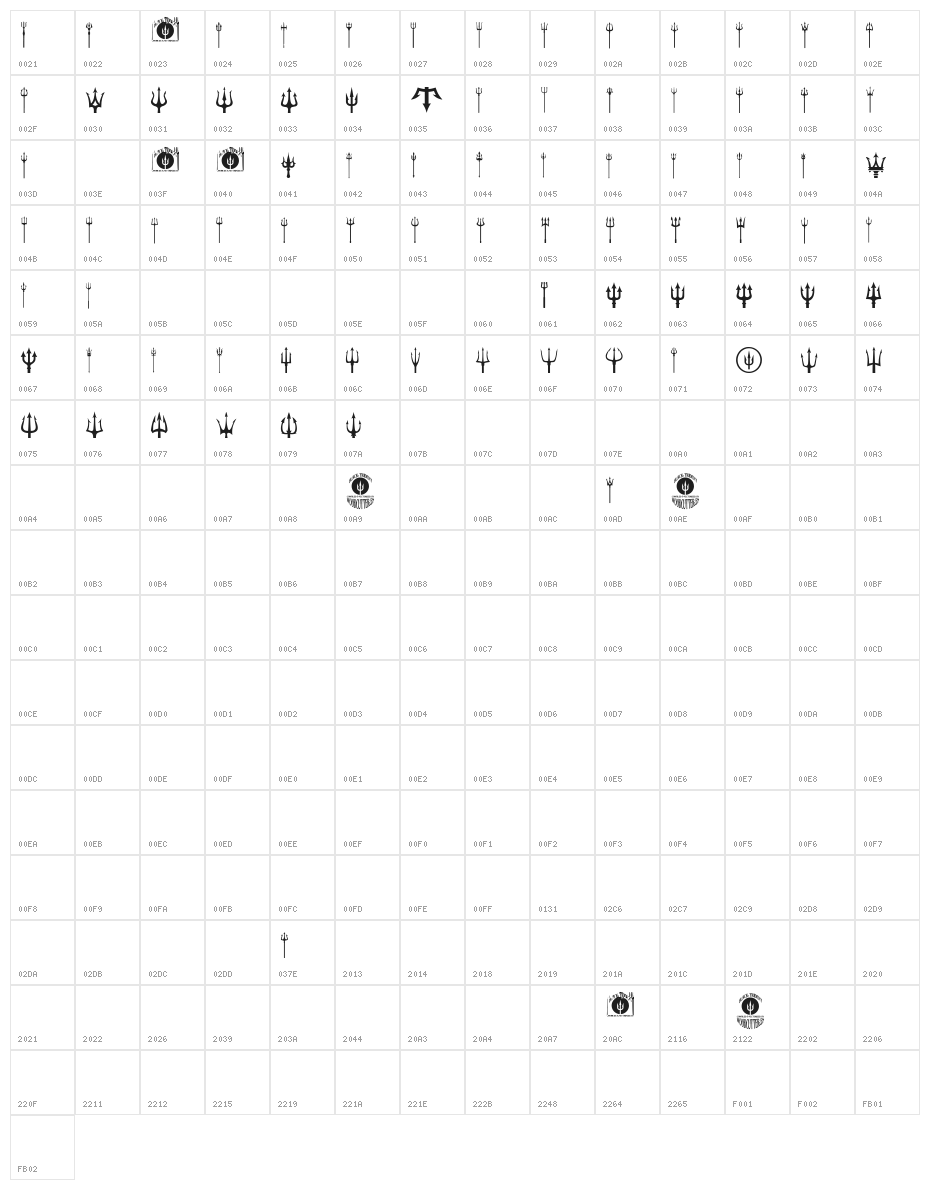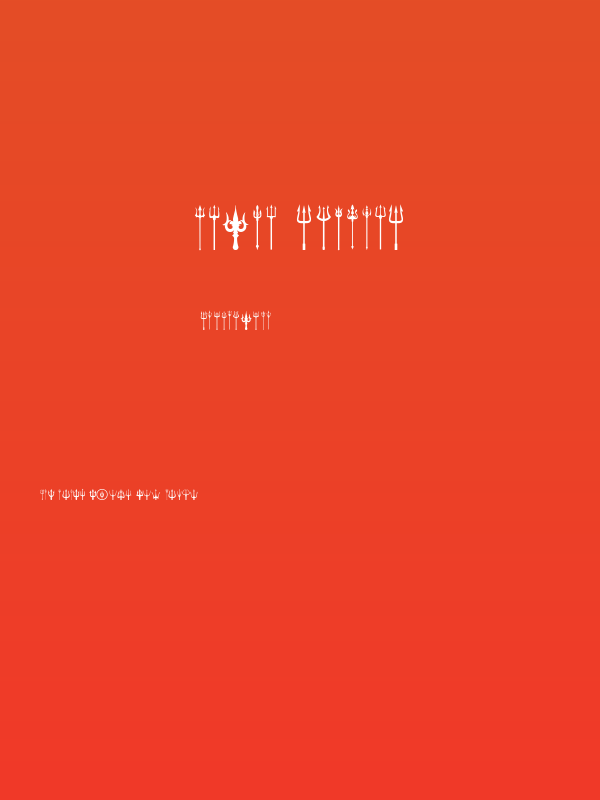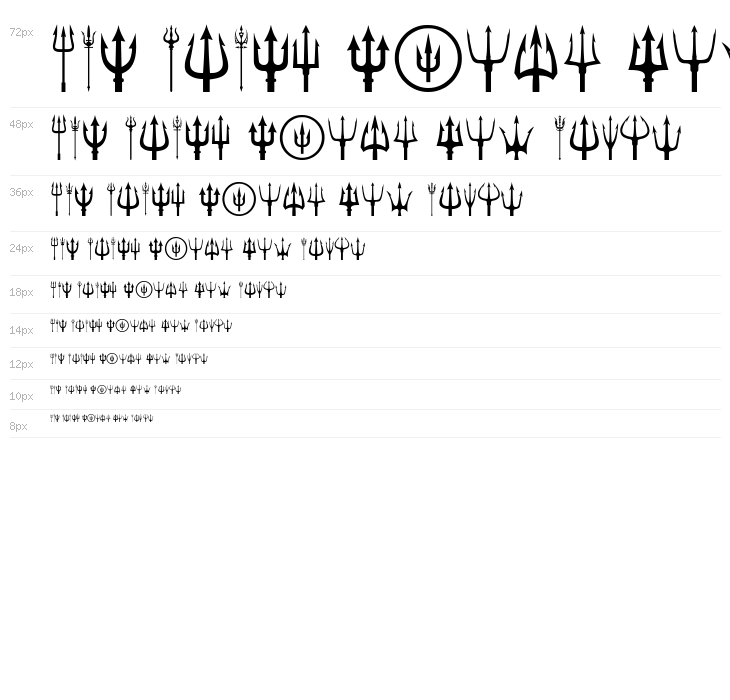
Black Trident Font
Black Trident Description
A decorative symbol font featuring a wide variety of trident icons, each with unique shapes, line weights, and ornamental details. The glyphs range from simple, minimal tridents to highly stylized and bold designs, suitable for thematic or illustrative purposes.
| Overall Style | Decorative, Thematic, Symbolic |
| Use Case | Logos, Icons, Thematic headlines, Illustrations |
| Proposed Projects | Mythology-themed posters, fantasy game graphics, logo design, tattoo concepts, branding for aquatic or maritime businesses. |